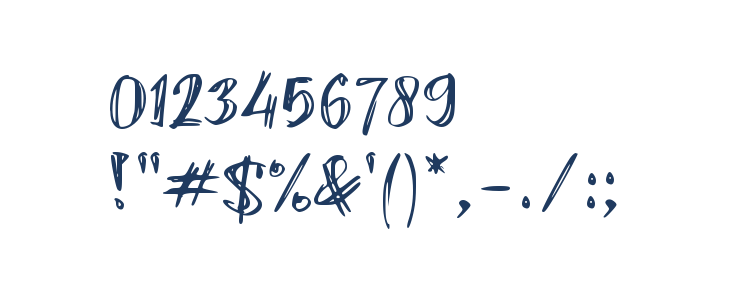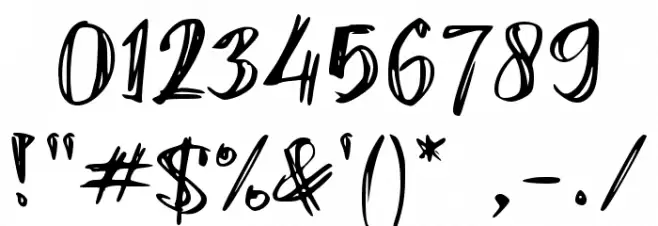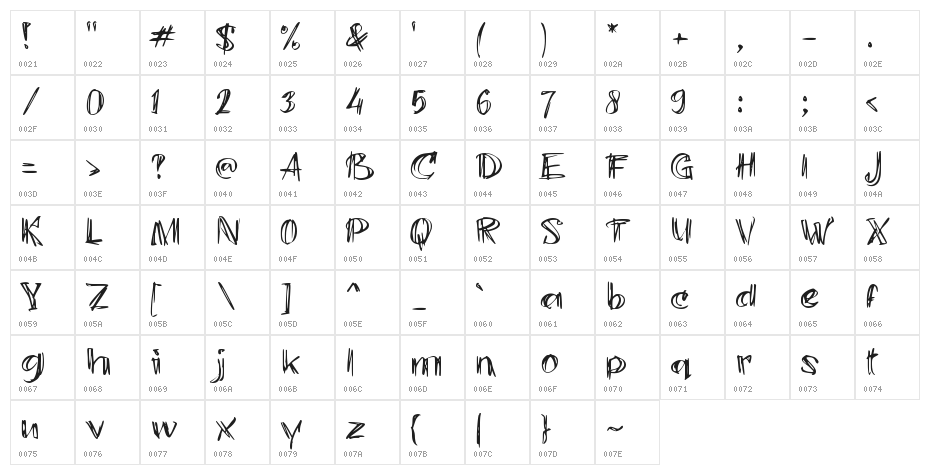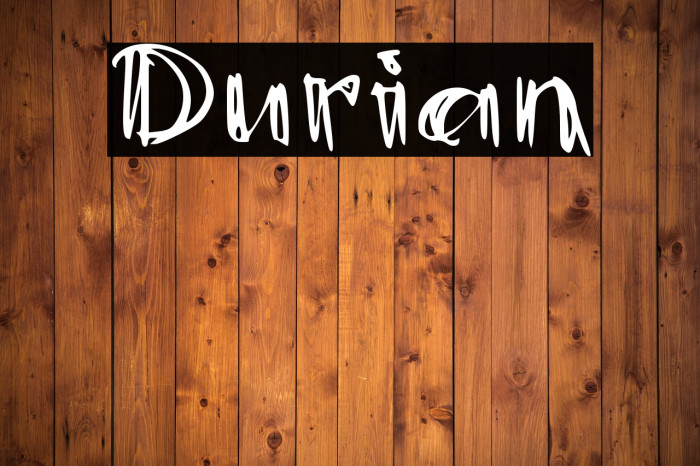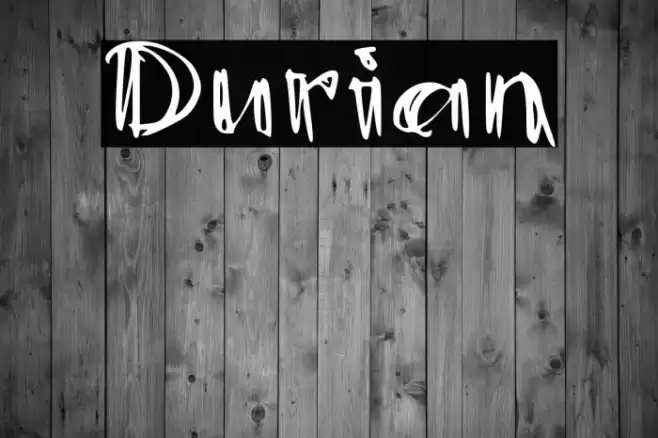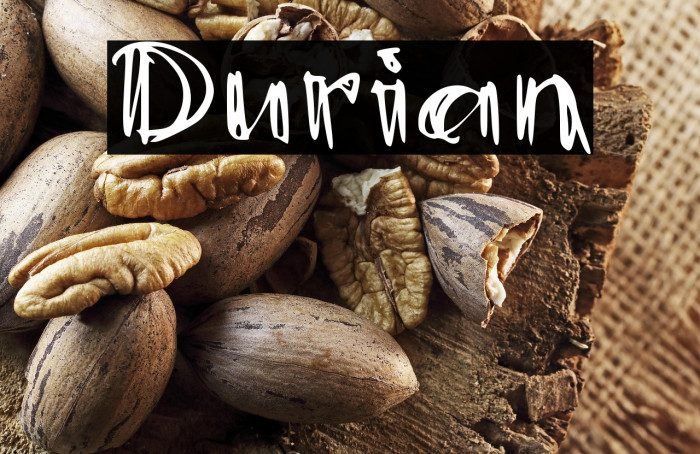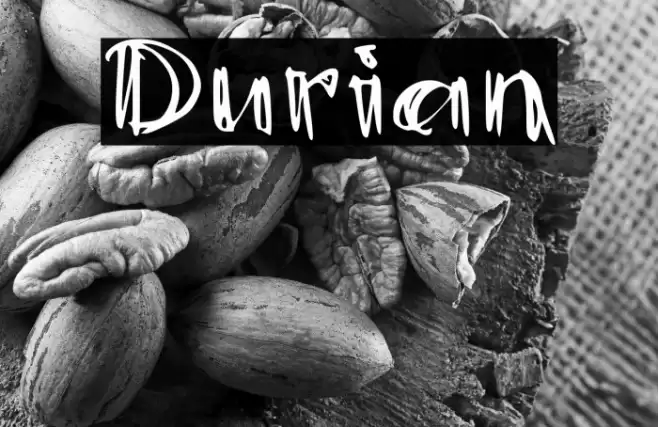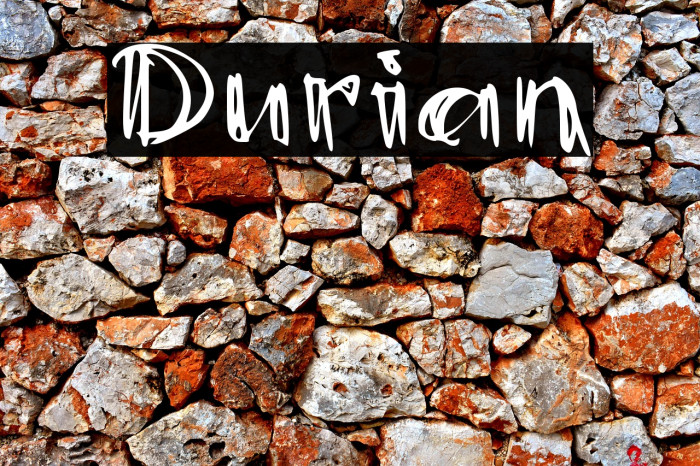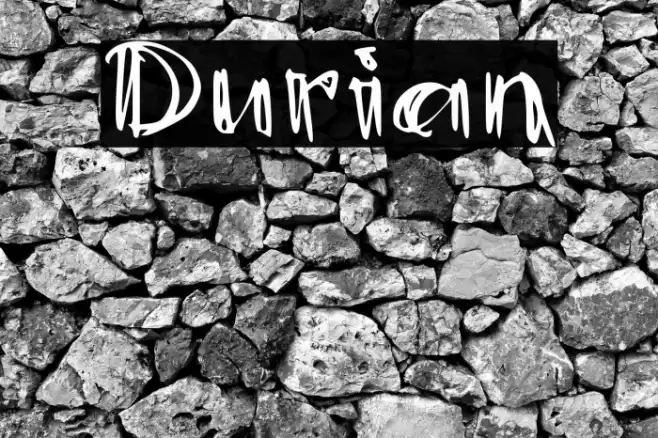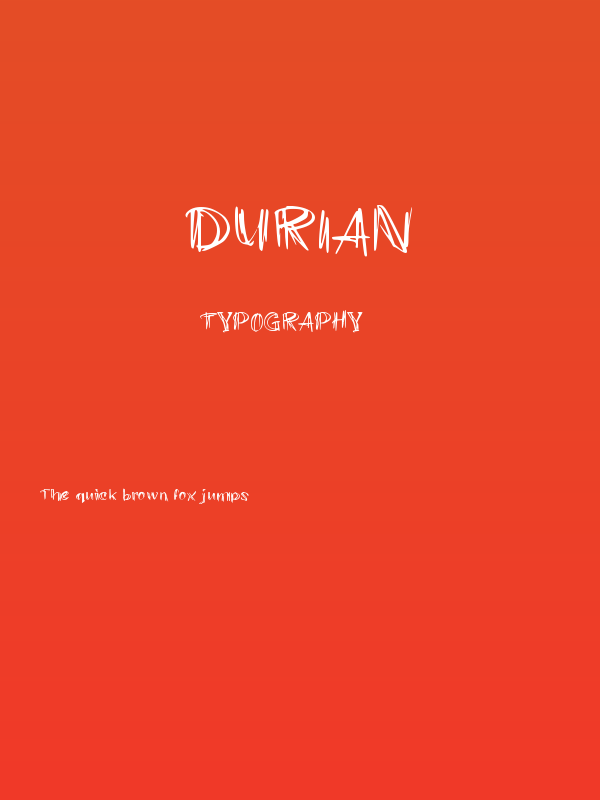
Durian Font
Durian Description
This font features a dynamic and energetic style, characterized by its bold and expressive strokes. The letters have a hand-drawn appearance, with irregular and playful forms that convey a sense of movement and creativity. The uppercase and lowercase letters maintain a consistent style, with exaggerated curves and angles that add to the font's unique personality. The numbers and special characters follow the same design principles, ensuring a cohesive look across all elements. This font is ideal for projects that require a lively and artistic touch, making it perfect for creative branding, posters, and artistic designs.
| Use Case | Logos, Headlines, Artistic Designs |
| Proposed Projects | Ideal for creative branding, posters, artistic designs, and any project needing a lively touch. |